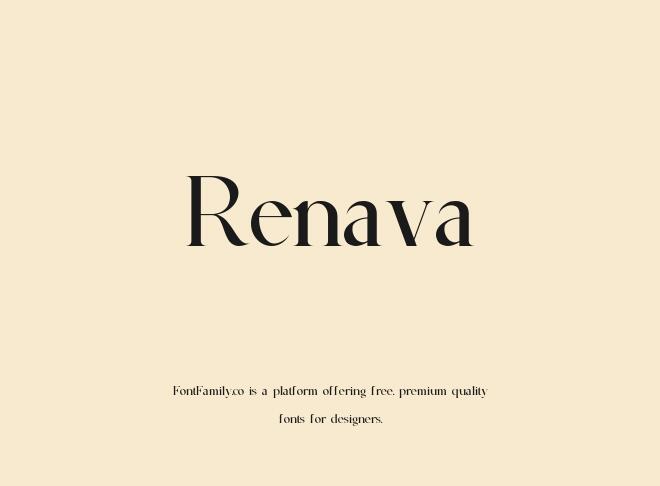
Renava Font
Renava Font is a stunningly modern and elegant display font brought to you by Type Factory. It is characterized by its sleek, streamlined letters and gentle curves that create a sophisticated aesthetic. Renava Font is reminiscent of classic beauty, yet its modern touch makes it a versatile choice for a wide variety of design projects, from logo designs and branding to social media posts and website headers. Its clean lines and minimalist style make it a great alternative to traditional serif fonts. The Renava Font is a free-to-download, personal use font that is perfect for designers looking to add a touch of elegance to their work.